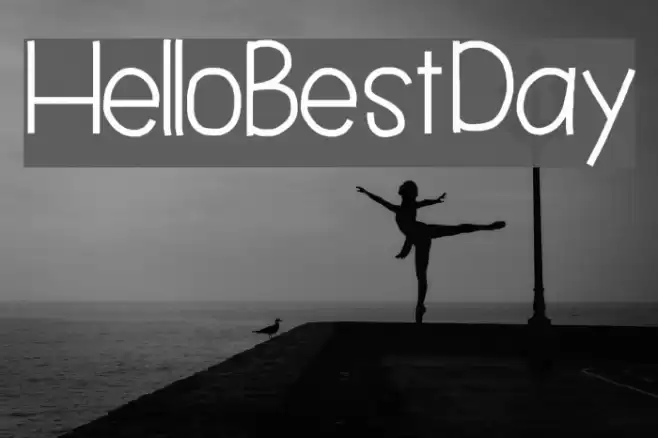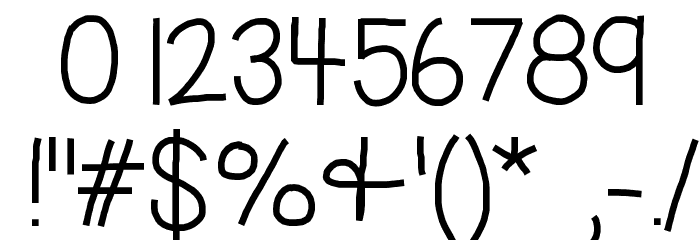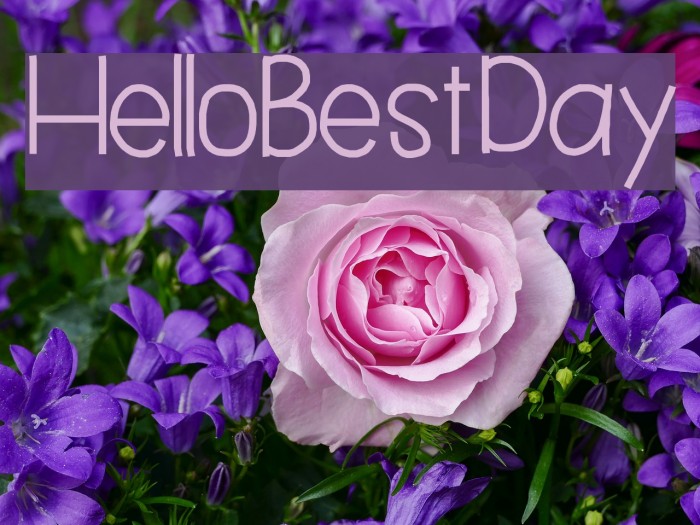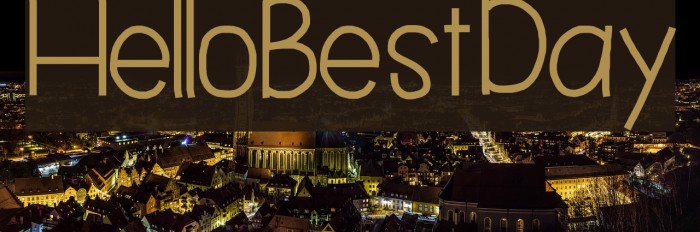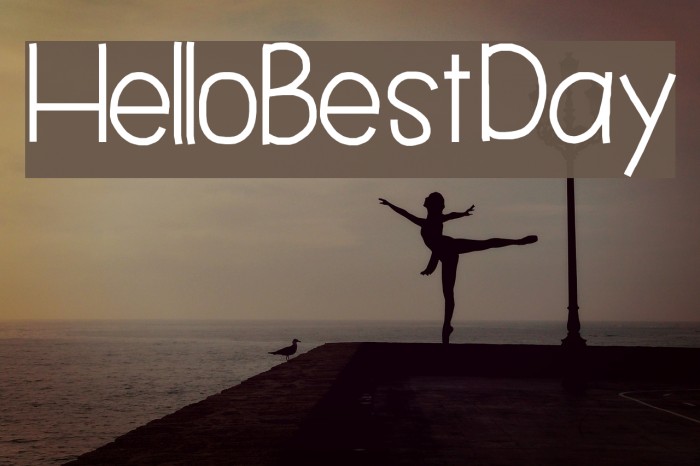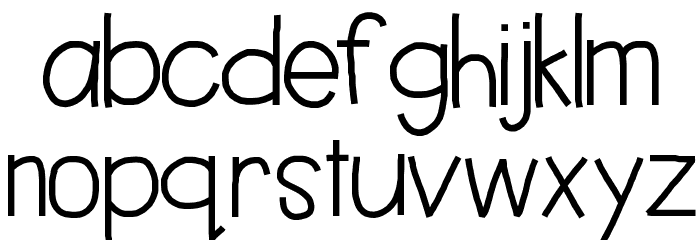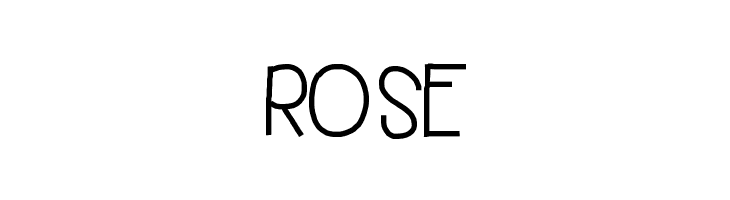
HelloBestDay Font
HelloBestDay Description
This font features a playful and informal style with a handwritten appearance. The characters are slightly irregular, giving it a casual and friendly feel. The uppercase letters are tall and narrow, while the lowercase letters maintain a consistent height with rounded edges. The numerals are clear and legible, matching the overall style of the alphabet. Special characters are included, maintaining the same playful aesthetic. This font is well-suited for projects that require a personal touch or a relaxed vibe.
A playful, handwritten-style font with a casual and friendly appearance from Handwritten fonts.
- Proposed Projects: Ideal for greeting cards, children's books, casual branding, and social media graphics.
- Overall Style: Casual, Playful
- Use Case: Headlines, Informal text, Branding